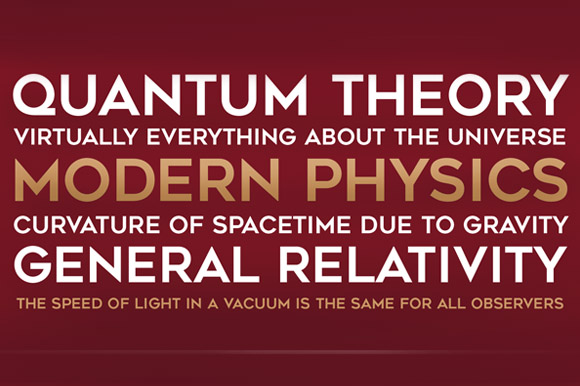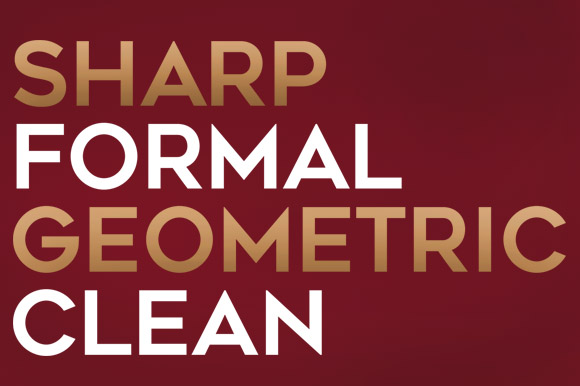
Introduction to Geometos Font
Geometos is a sharp, clean sans serif.
The font is uppercase only and works well for branding .
Why Choose Geometos Font?
Geometos Font offers exceptional quality and versatility, making it a valuable addition to your design toolkit. Whether you’re creating for personal projects or commercial use, Geometos Font delivers professional results.